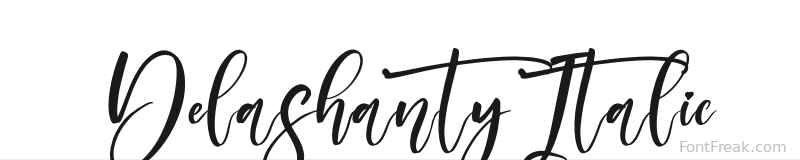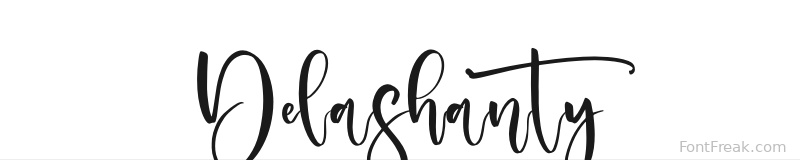
Delashanty
Delashanty Italic
About Delashanty
Delashanty, created by Perspectype Studio in 2021, is a captivating display font that elegantly blends modern flair with a touch of classic charm. This script-style font features fluid, cursive letterforms that exude a sense of warmth and personality. Its strokes vary in weight, creating a harmonious contrast that draws the eye, while the generous spacing between characters enhances readability and adds a sophisticated touch.
The visual characteristics of Delashanty include its graceful curves and decorative flourishes that elevate its aesthetic appeal. The italic style lends a dynamic quality, making it particularly versatile for various design applications. As a result, this font is perfect for use in wedding invitations, where it can evoke romance and elegance. It also shines on restaurant menus, providing a charming visual element that complements culinary delights. Additionally, Delashanty is an excellent choice for movie posters, where its dramatic flair can capture the essence of the film. Content creators will find it ideal for social media graphics, as its unique style can help to convey a brand’s personality effectively.